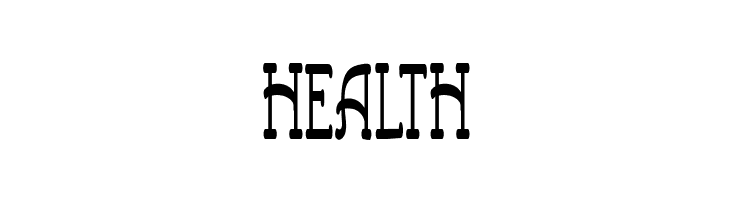
A modern, geometric font with a futuristic and technical design.
A bold, outlined font with a modern, urban aesthetic.
A modern, geometric font with a futuristic and sleek design.
A bold, industrial-style font with strong, clean lines.
A modern script font with geometric, interconnected characters and a bold presence.
A bold, brush-style font with dynamic strokes and an energetic feel.
A tactile writing system using raised dots for visually impaired readers.
A tactile writing system using raised dot patterns for visually impaired readers.
A playful, casual handwritten font with an organic flow.
A bold, distressed font with a rugged, industrial style.
A rugged, textured font with a natural, adventurous feel, resembling wood or bark.
A futuristic, abstract font with geometric shapes and a minimalist design.
A bold, decorative font with a unique striped pattern for impactful display use.
A bold, decorative font with a lined texture and vintage appeal.
A bold, shadowed font with a vintage flair, perfect for standout headlines.
A modern, semi-bold sans-serif font with clean lines and balanced proportions.
A modern, atomic-themed design with consistent symbols and a scientific aesthetic.
A bold, playful font with a shadowed, three-dimensional effect.
A bold, 3D italic font with outlined characters for a dynamic look.
A modern, dotted font with a playful and digital appearance.
A bold, 3D gradient font with a retro-modern style.
A bold, three-dimensional font with a hollow interior and shadow effect.
A bold, three-dimensional font with a retro, impactful style.
A bold, geometric font with clean lines and a modern aesthetic.
A flowing, cursive font with elegant curves and interconnected characters.
An abstract, hand-drawn style font with bold, irregular strokes and a graffiti-like appearance.
A dynamic and elegant script font with fluid, cursive letterforms and dramatic flourishes.
A bold, playful font with a vintage-modern style, ideal for creative projects.
A bold, handwritten-style font with thick strokes and smooth curves.